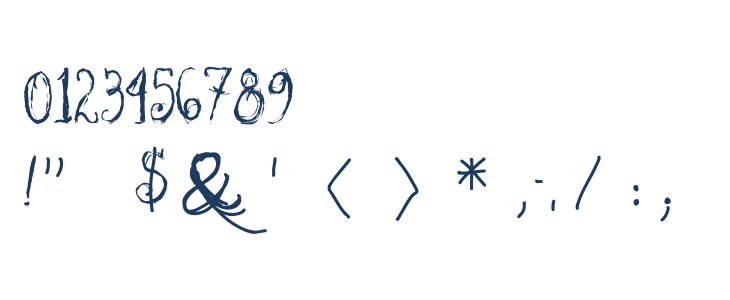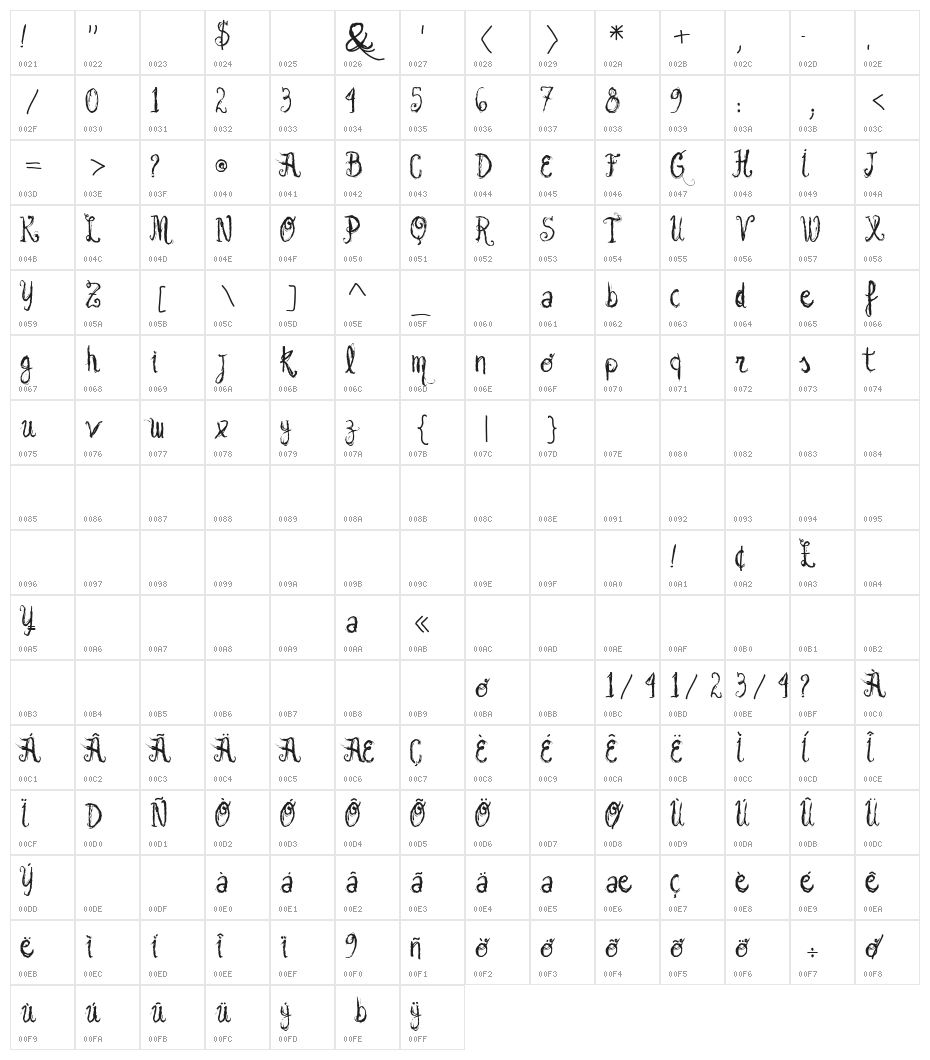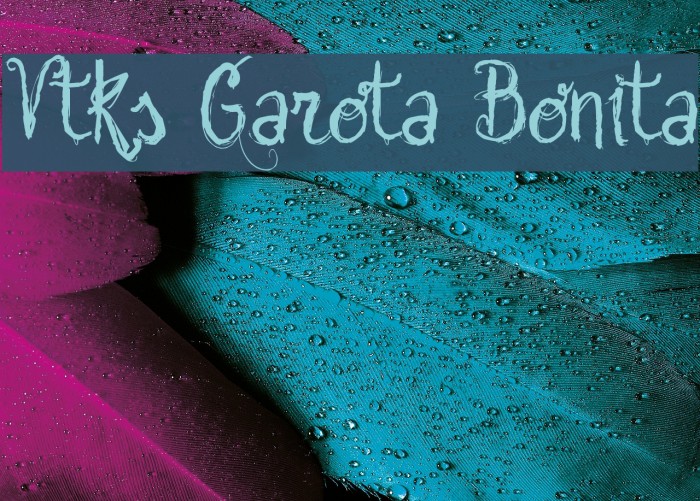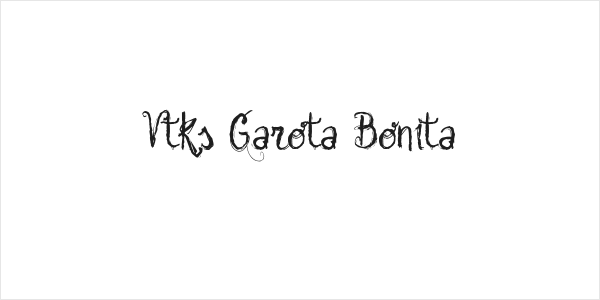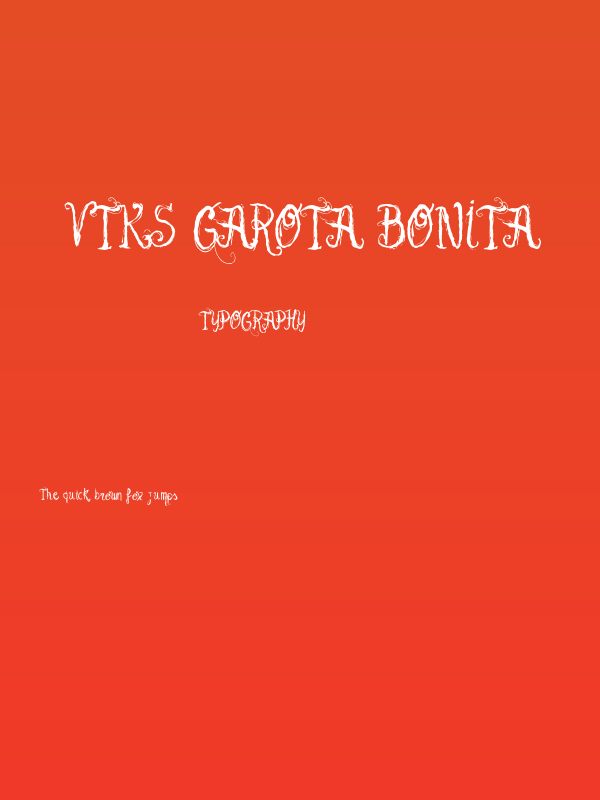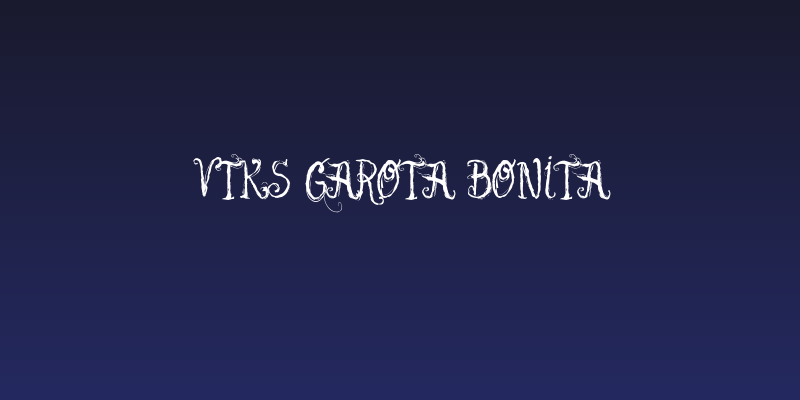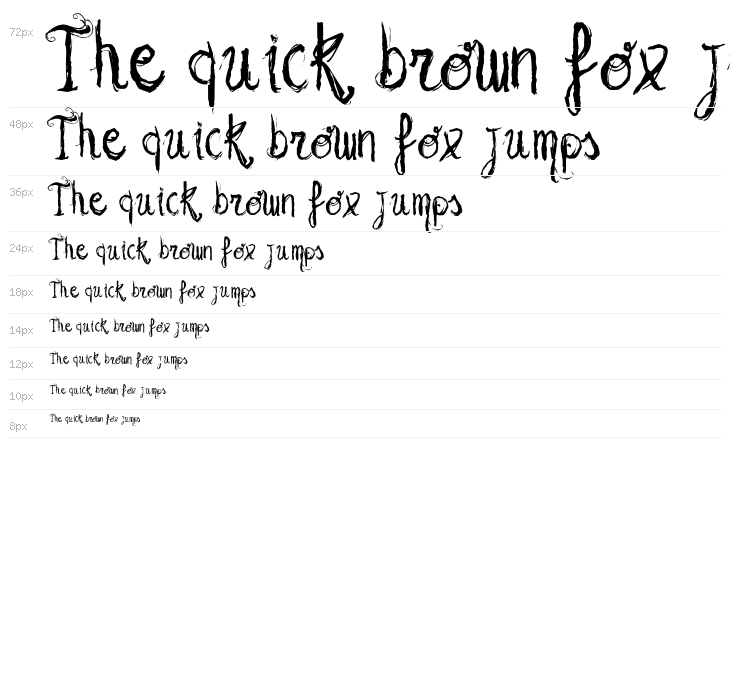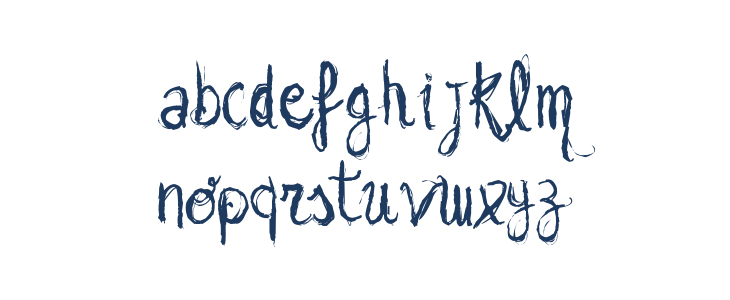
Vtks Garota Bonita Font
Vtks Garota Bonita Description
This font features a highly decorative and artistic style, characterized by its swirling, brush-like strokes that give it a hand-drawn appearance. The letters are ornate, with intricate details and flourishes that add a sense of whimsy and creativity. The uppercase letters are particularly elaborate, with extended strokes and loops, while the lowercase letters maintain a consistent style with slightly less embellishment. Numbers and special characters follow the same artistic theme, ensuring a cohesive look across all glyphs. This font is ideal for projects that require a touch of elegance and artistic flair.